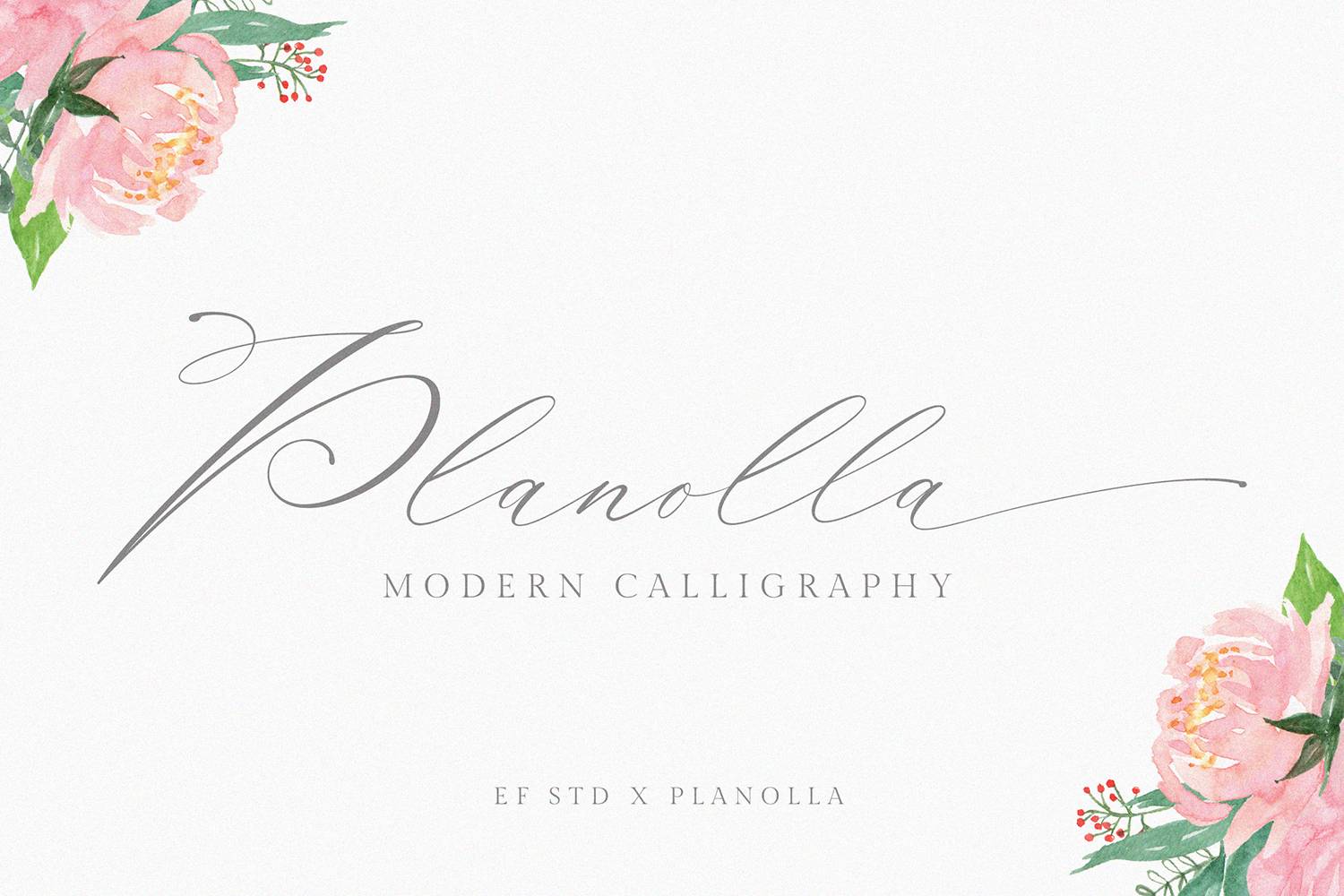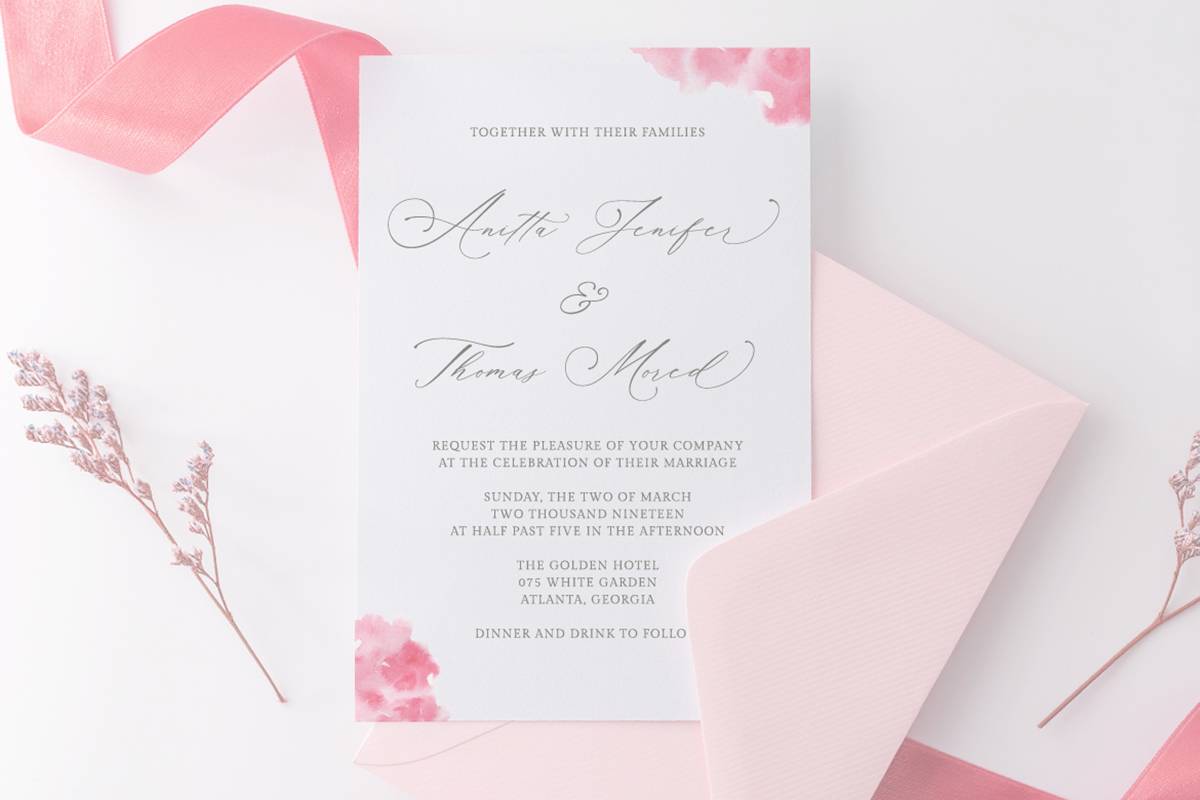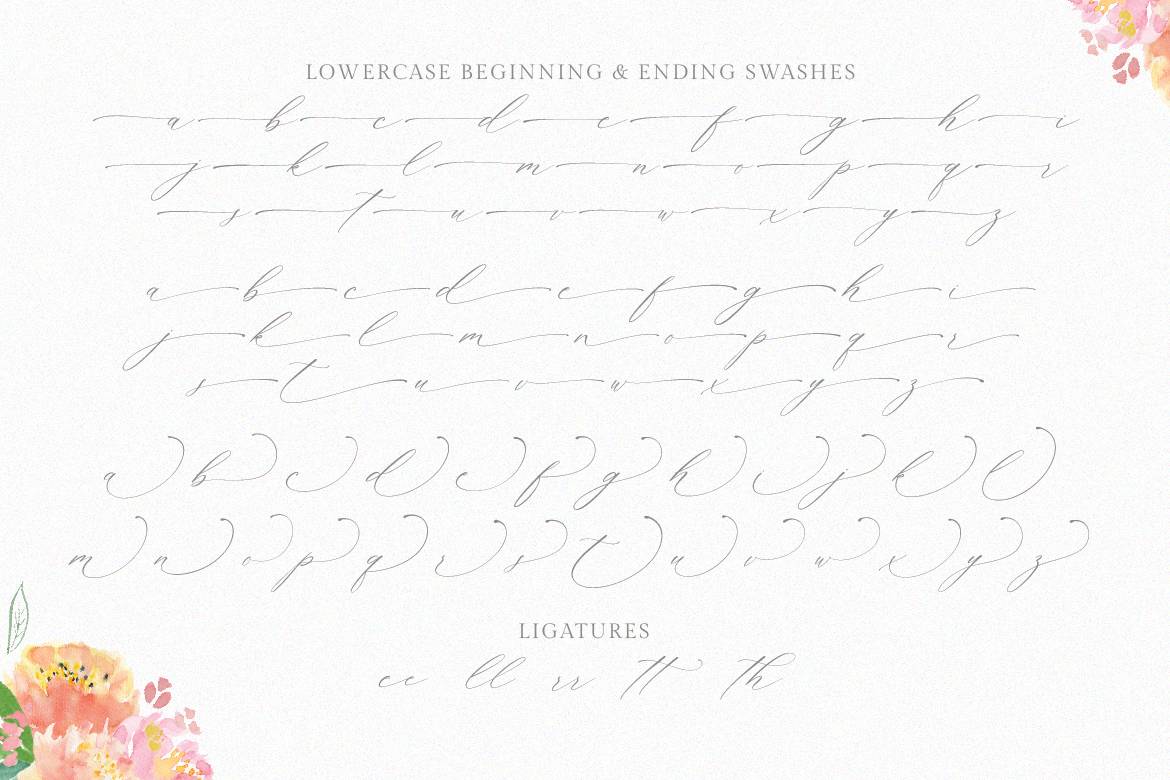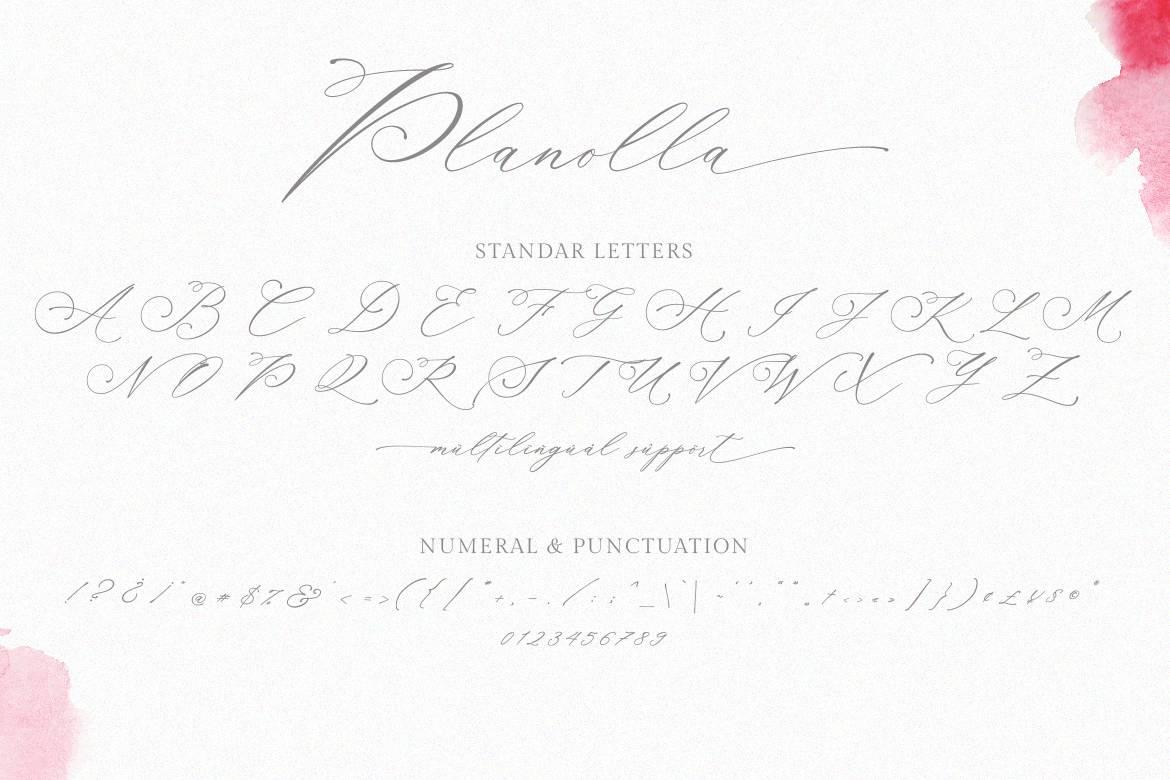
Planolla is an elegant, delicate script font characterized by its fine, flowing lines and graceful swashes, evoking a classic handwritten calligraphy style. Its light weight and high contrast strokes give it a refined and sophisticated feel, making it ideal for luxury branding, wedding invitations, and elegant editorial designs where a touch of romance and artistry is desired.
| Font family | Planolla Font |
| Release date | 2019-08-20 |
| Designer | Ef Studio - Luthfi Fauzi - Purwakarta(INA) |